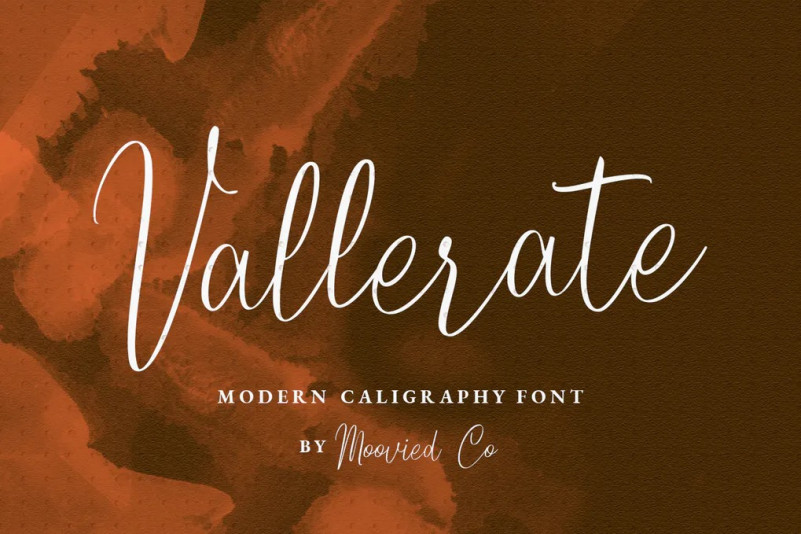
Vallerate Font
Vallerate Font is a modern signature, It is perfect for blogging, social media, branding, product packaging, wedding invitations, branding, headlines, signage, labels, signature, book covers, posters, quotes and more.